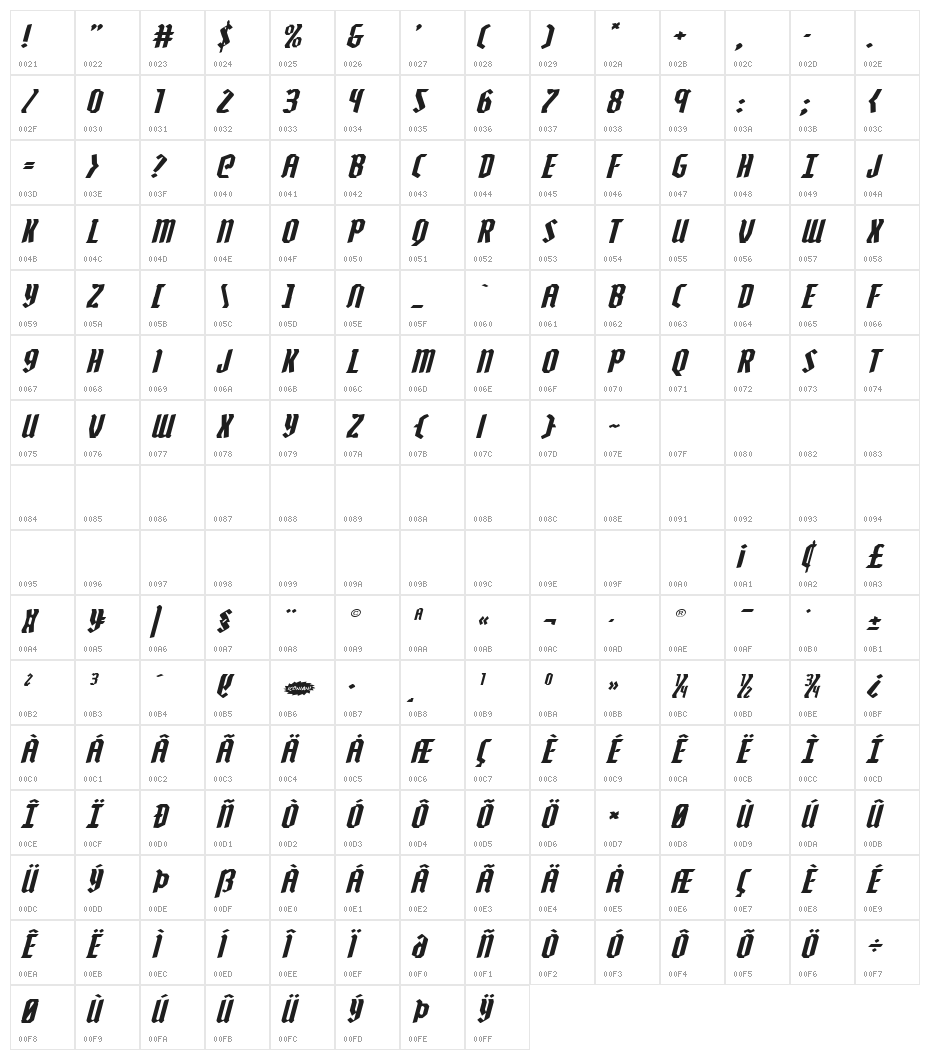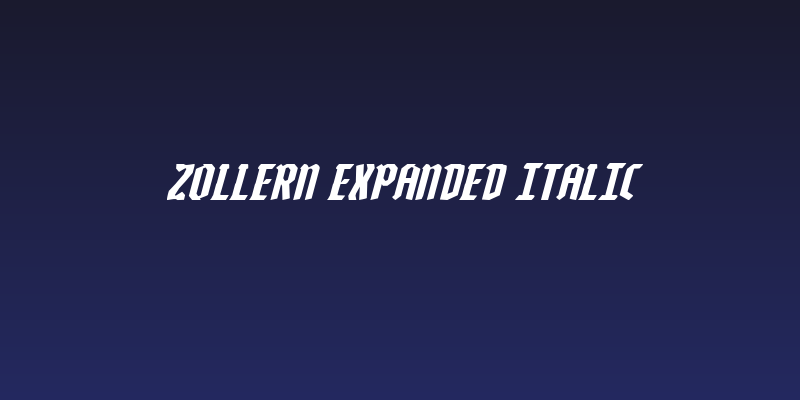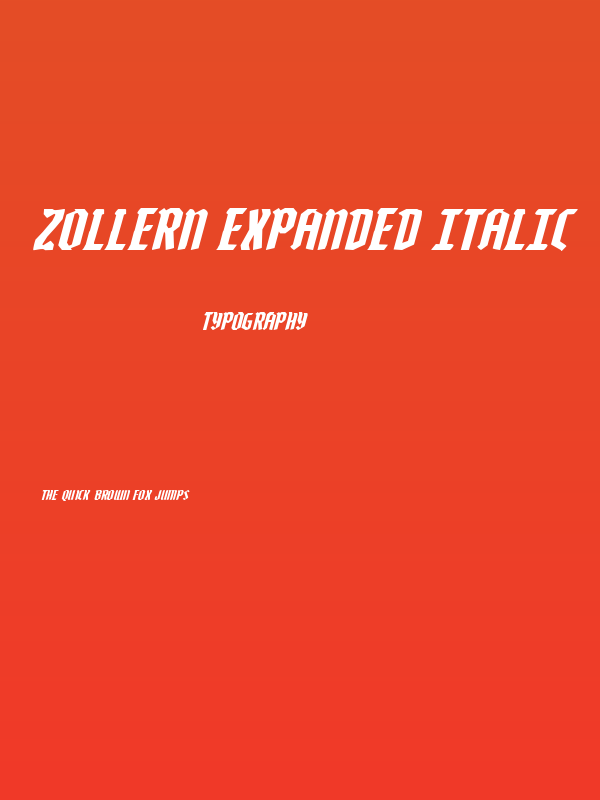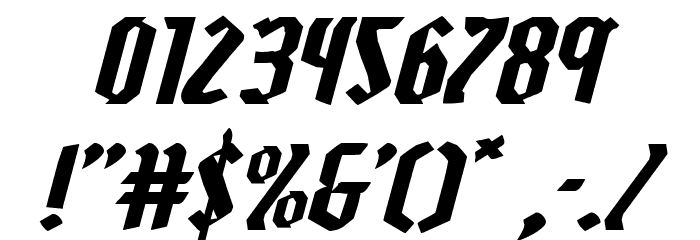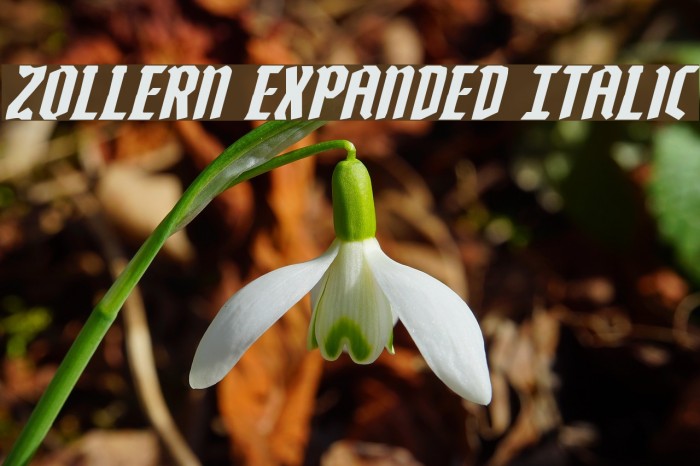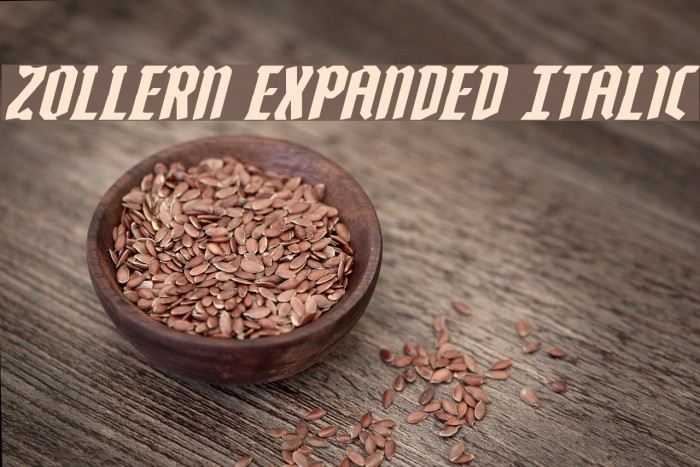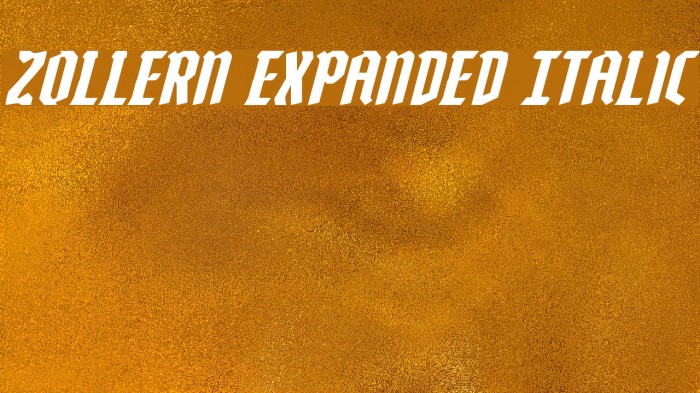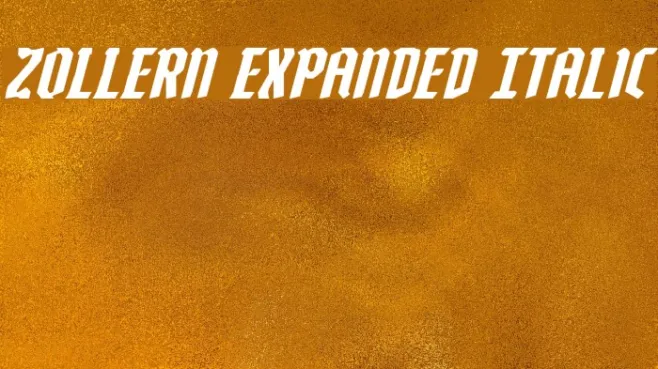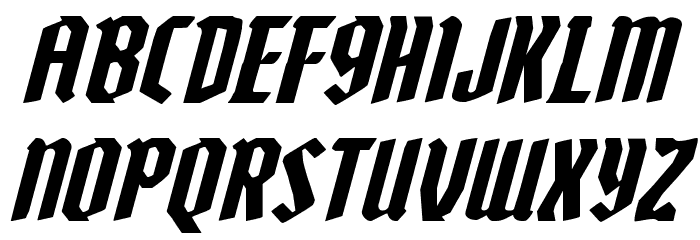
Zollern Expanded Italic Font
Zollern Expanded Italic Description
This font features a bold and dynamic style with a distinct italic slant, giving it a sense of movement and energy. The characters are designed with sharp angles and a strong presence, making it ideal for attention-grabbing headlines or impactful logos. The expanded width of the letters adds to its commanding appearance, while the consistent stroke thickness provides a uniform look. The font includes a full set of uppercase and lowercase letters, numbers, and a variety of special characters, ensuring versatility for various design needs.